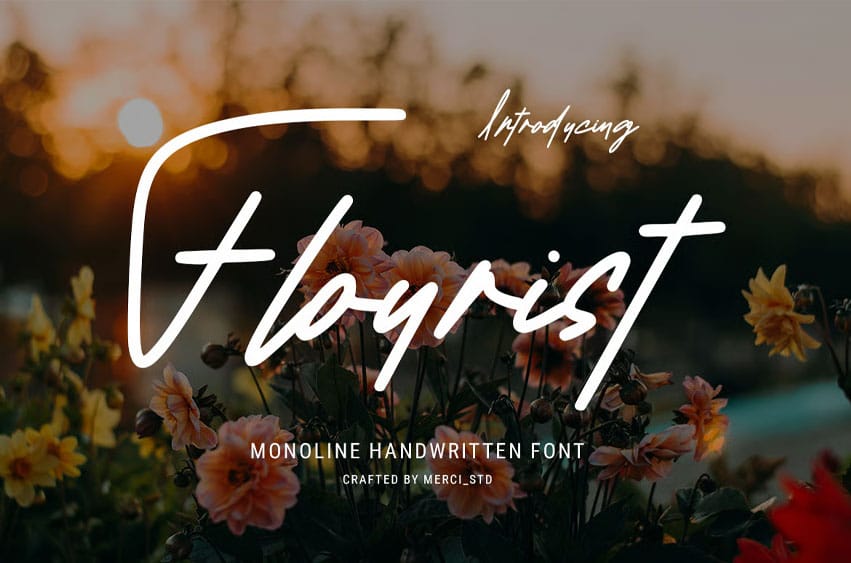
Flourist Font is a monoline handwritten font crafted with smooth flowing lines and modern casual elegance. Ideal for personal branding, signature logos, social media quotes, fashion projects, product packaging, and stylish handwritten typography needs.
Its clean monoline strokes create a fresh, minimal, and authentic handwritten feel for modern creative projects.
- Unique Hand-Drawn Style